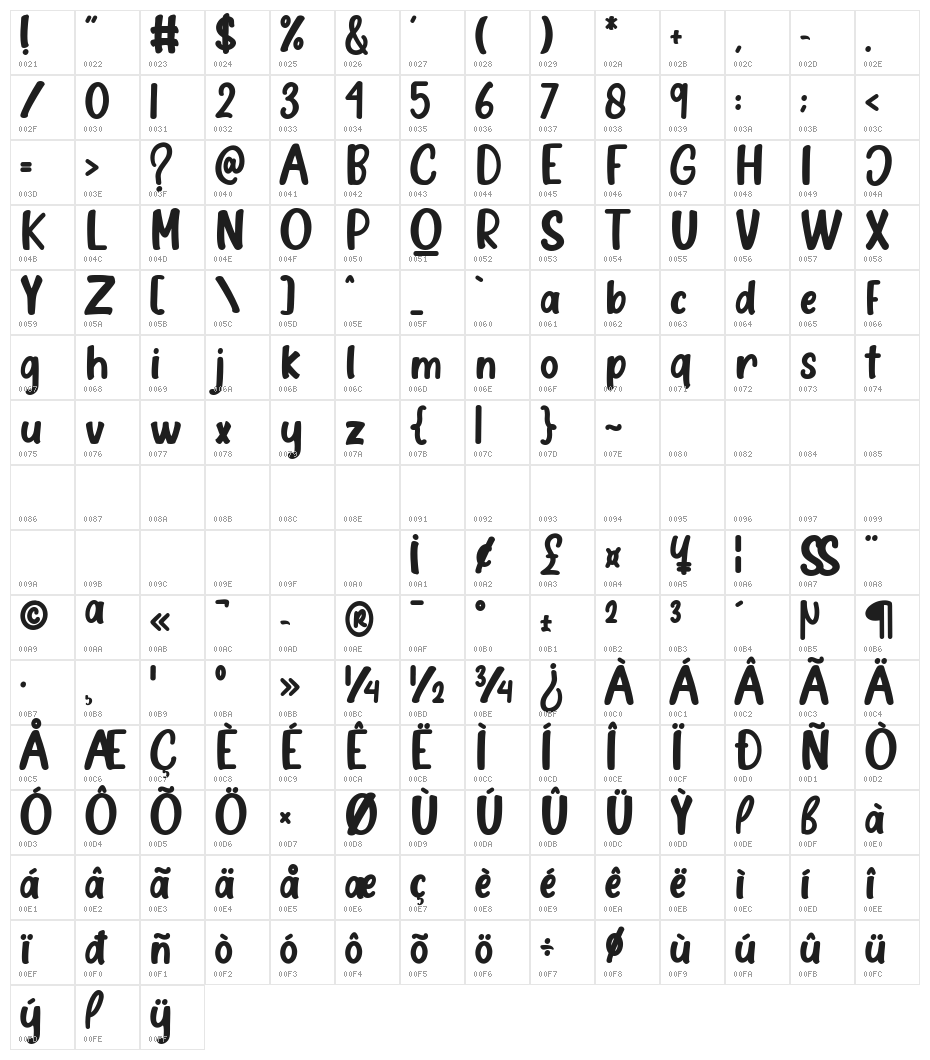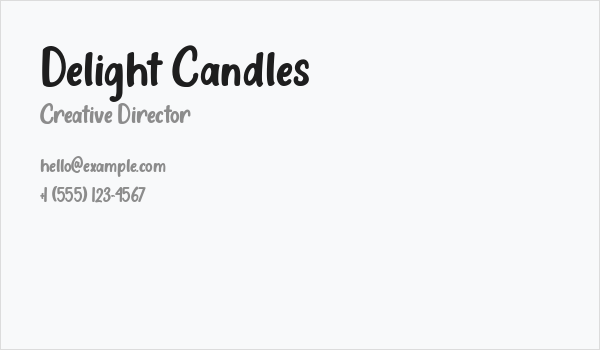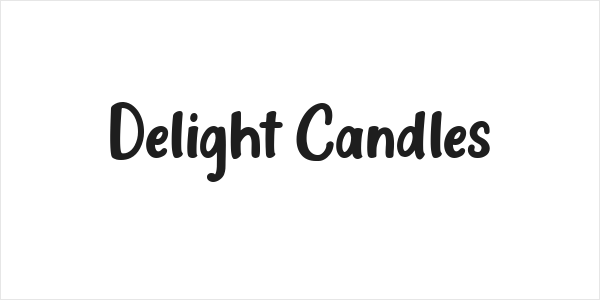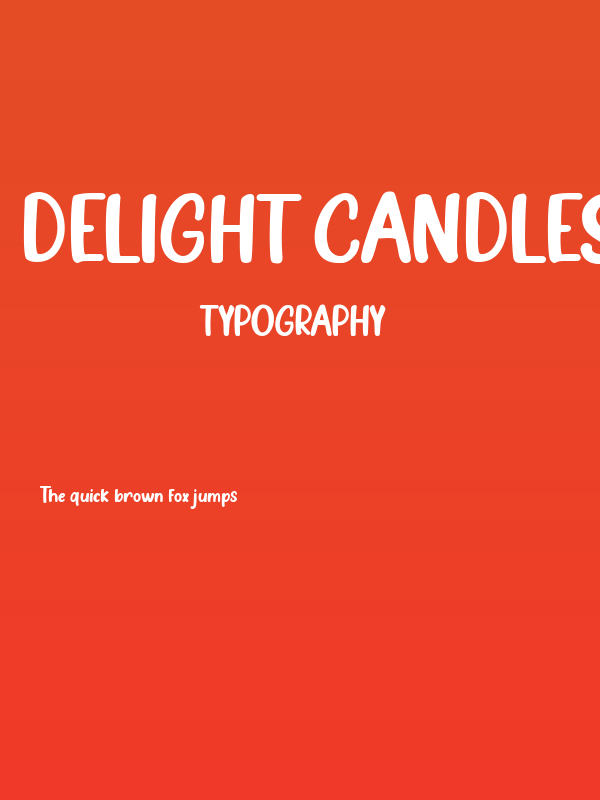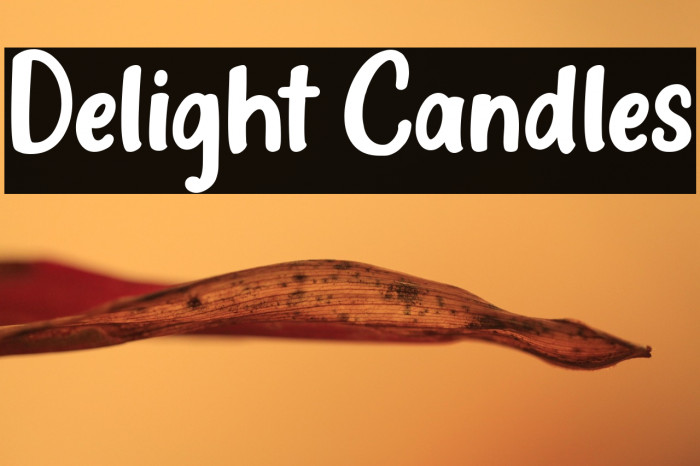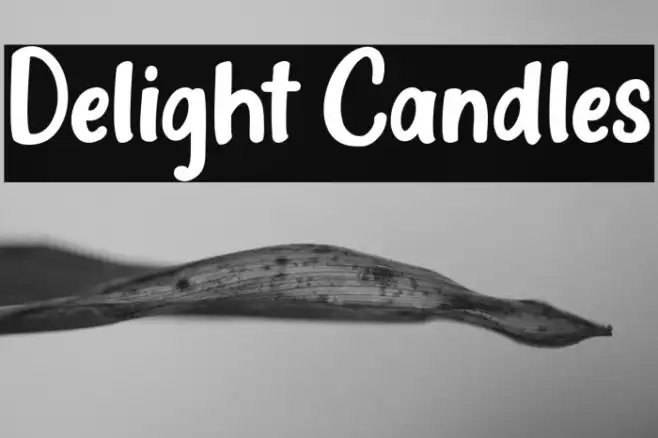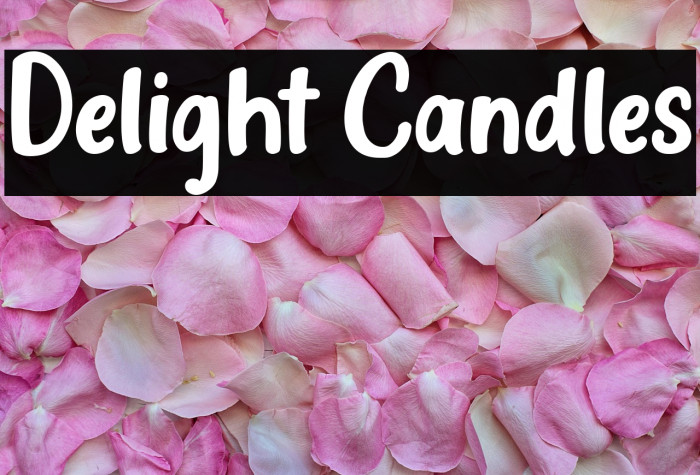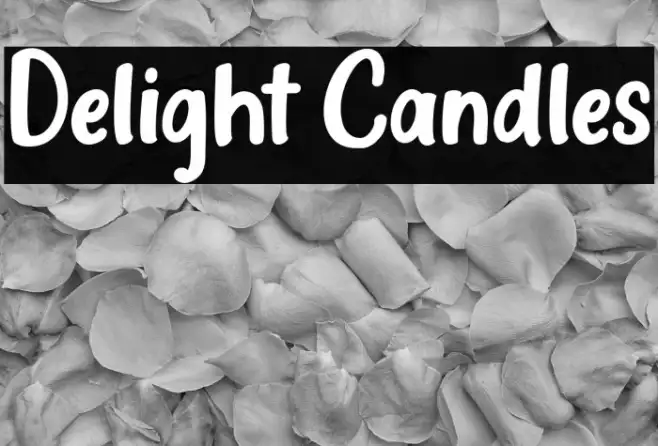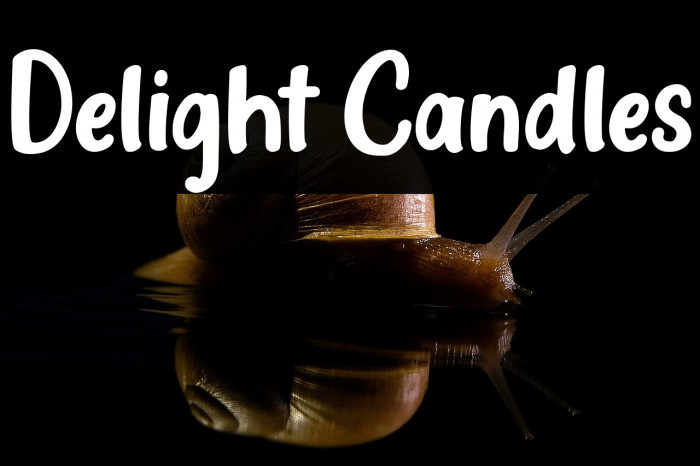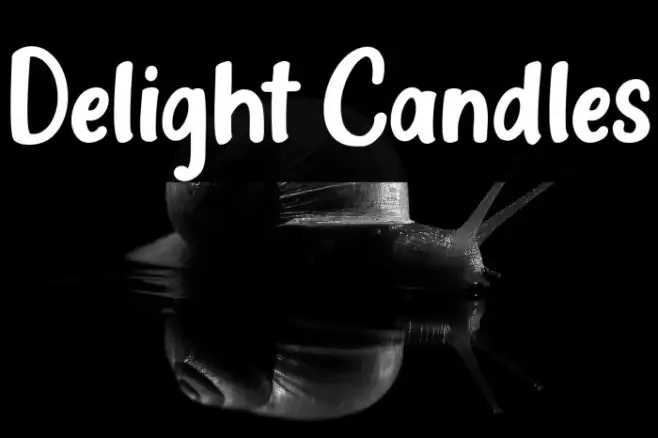
Delight Candles Font
Delight Candles Description
This playful and bold font features rounded, thick strokes that give it a friendly and approachable appearance. The characters are slightly irregular, adding a whimsical touch that is both modern and casual. The uppercase and lowercase letters maintain a consistent style, with a slight slant that suggests movement and energy. The numerals are equally bold and rounded, ensuring readability while maintaining the font's overall playful aesthetic. Special characters are included, matching the style of the alphanumeric characters. This font is ideal for projects that require a fun and engaging look.
| Overall Style | Playful, Modern |
| Proposed Projects | Perfect for children's books, playful branding, greeting cards, and casual invitations. |